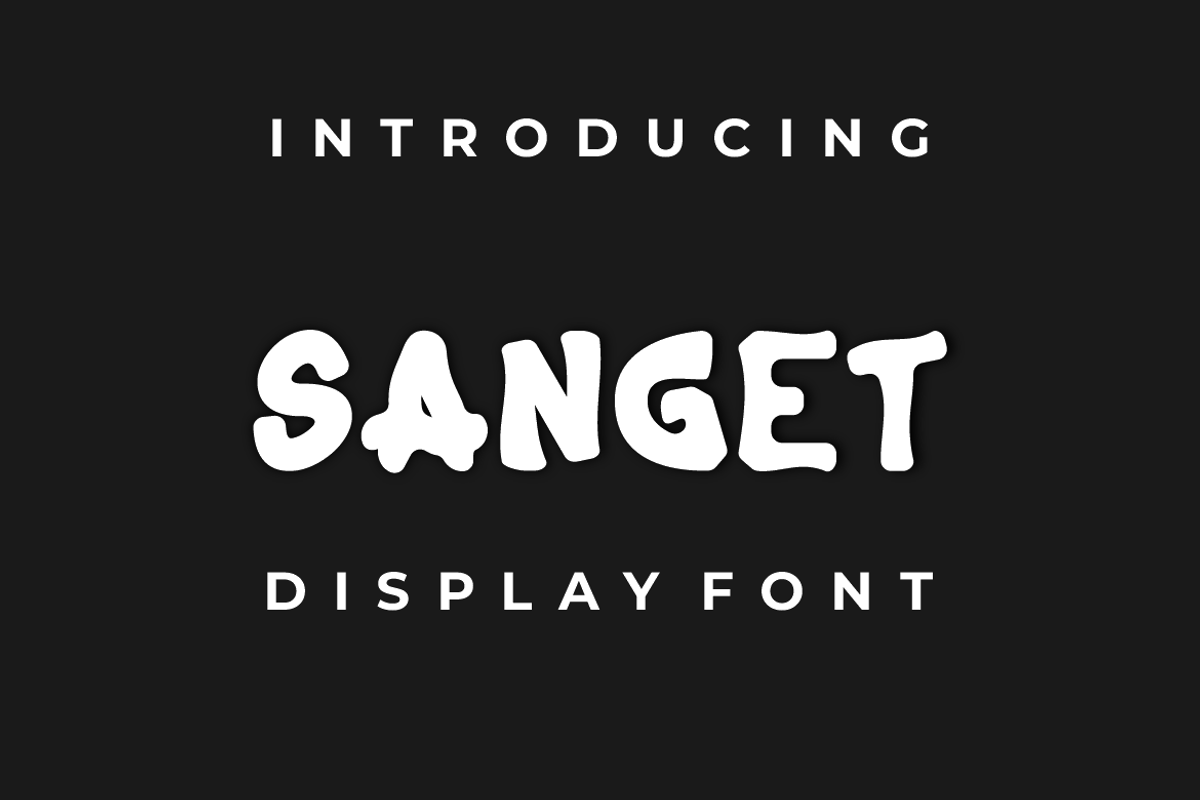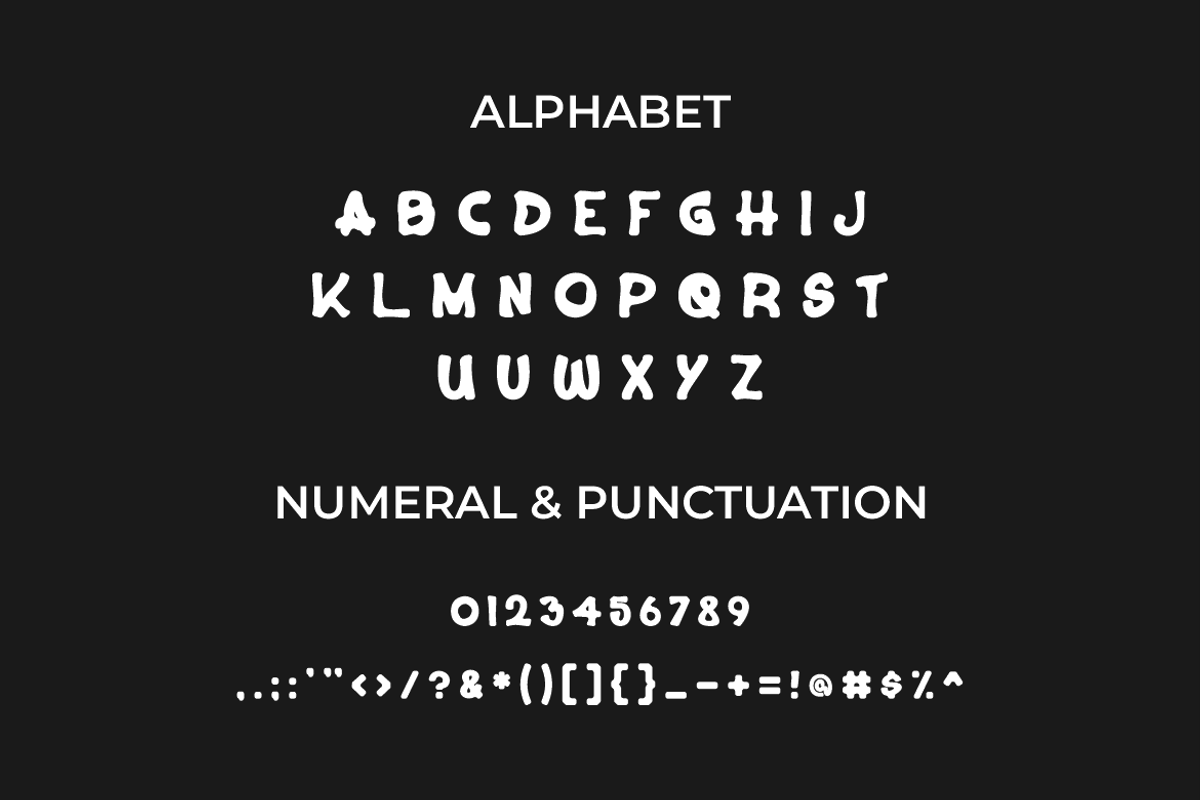
SANGET FONT
Introducing our new product SANGET FONT - Modern Font
SANGET FONT - Modern Font is a bold and authentic display font. The font is suitable for any branding project like logo, t-shirt printing, esport, and many more. outstanding in a wide range of contexts.